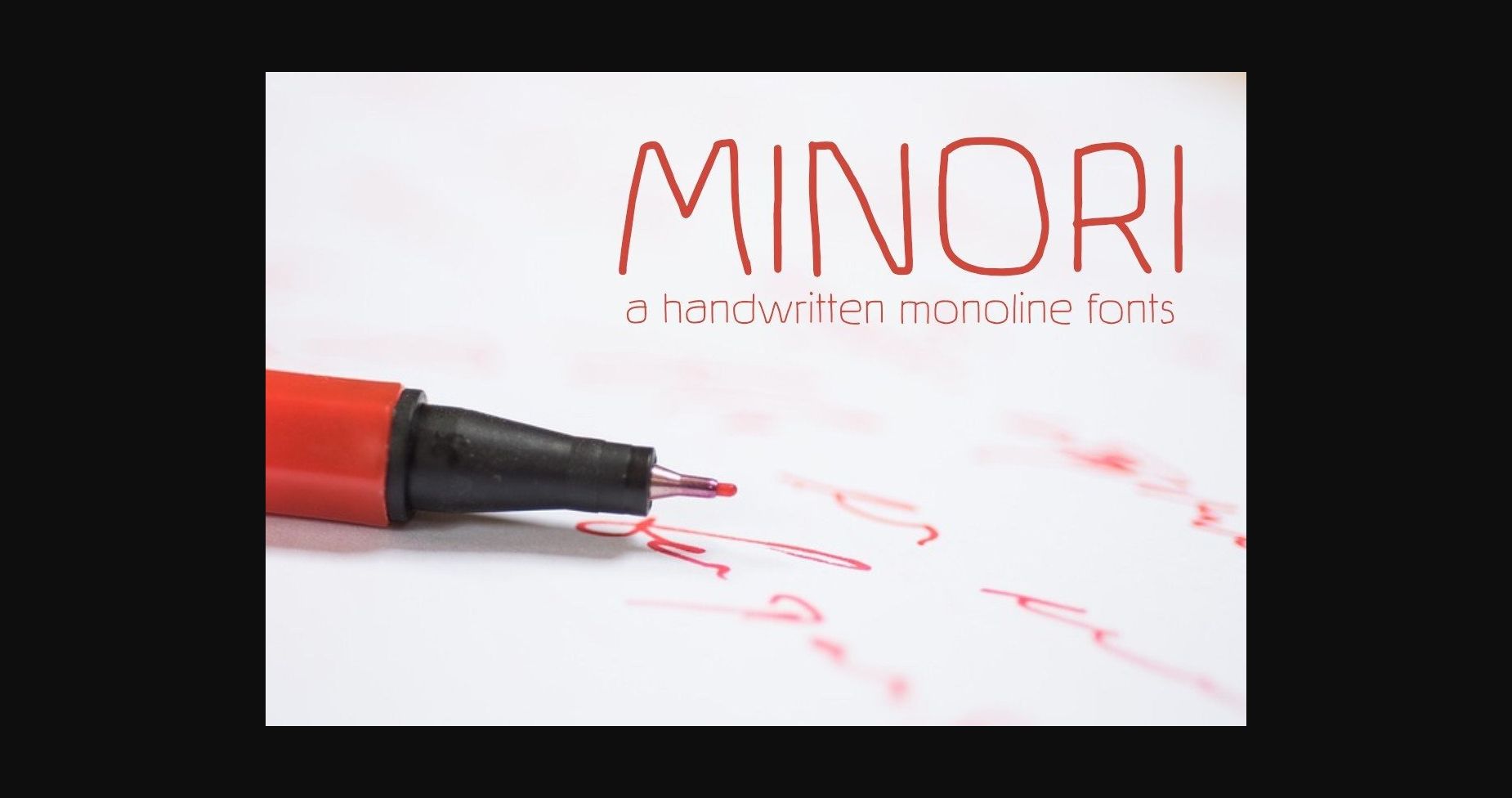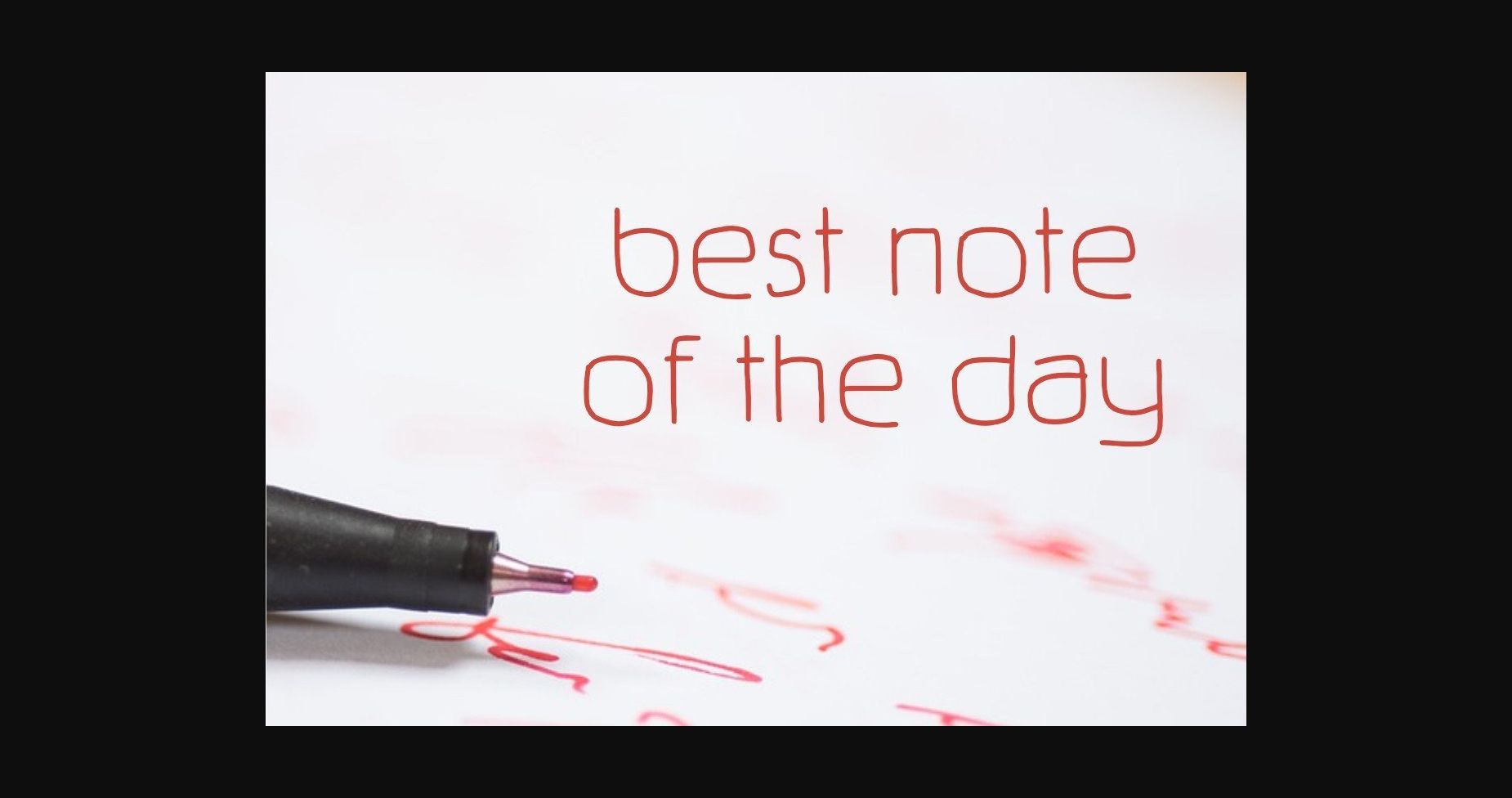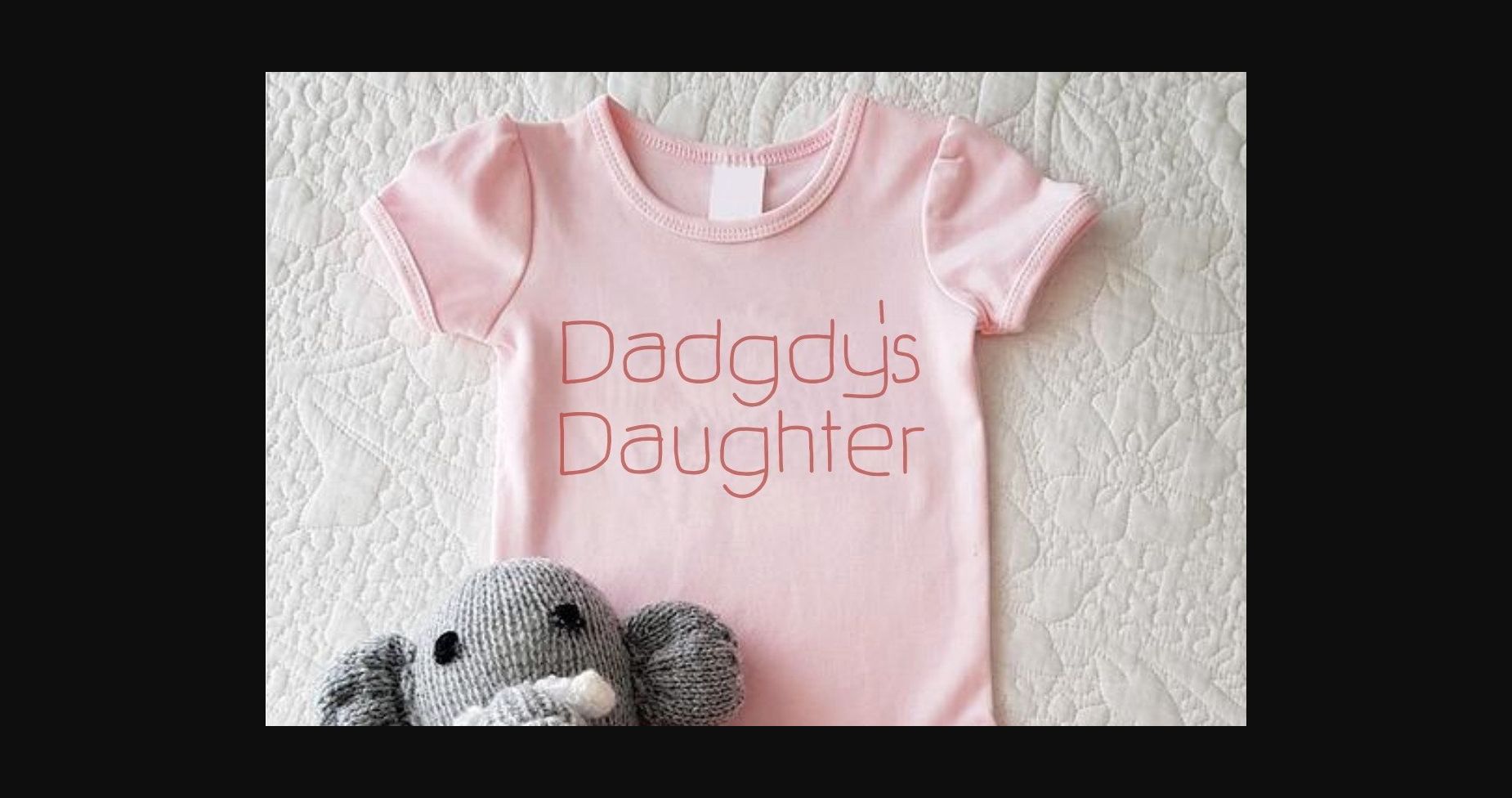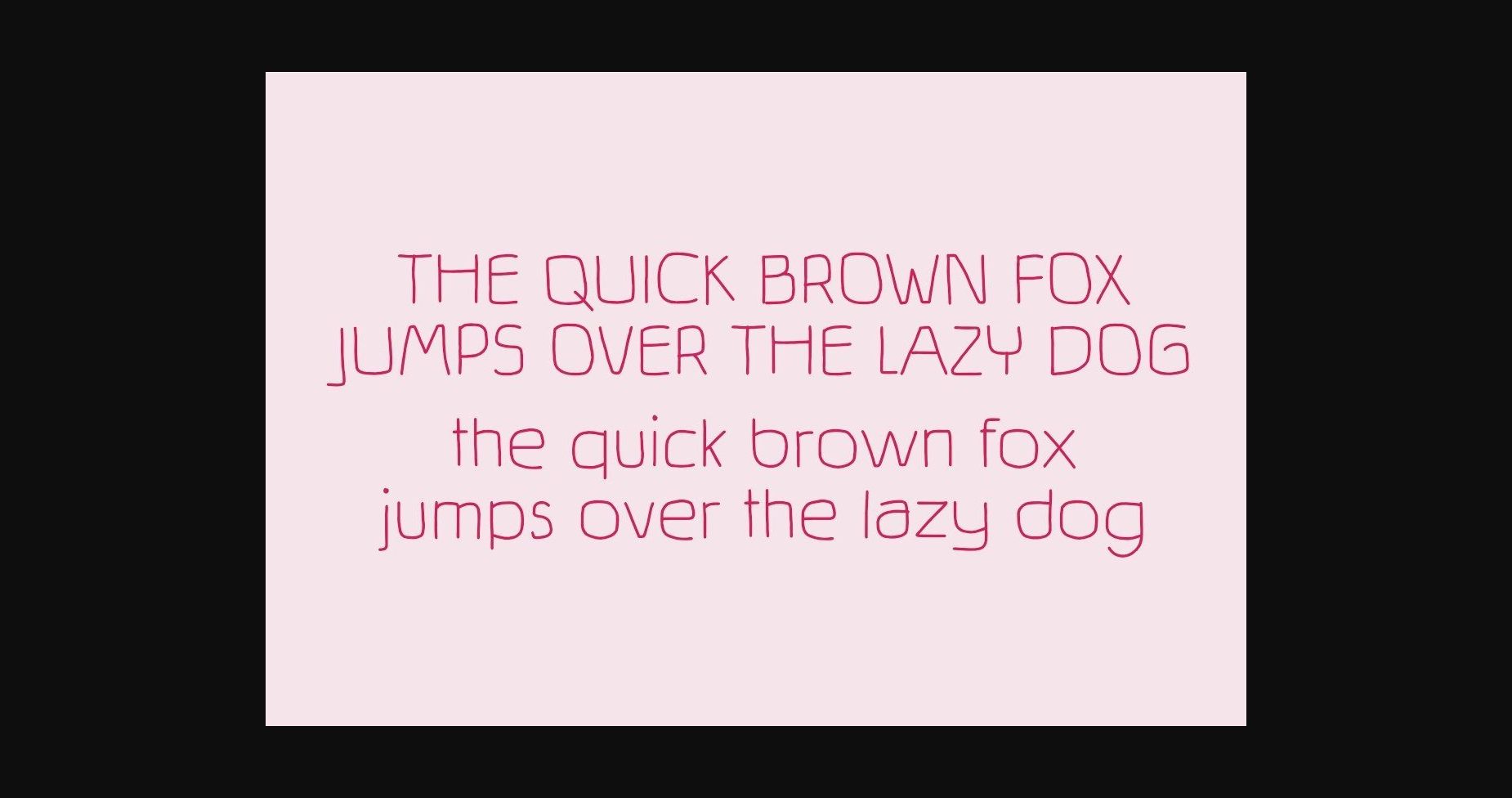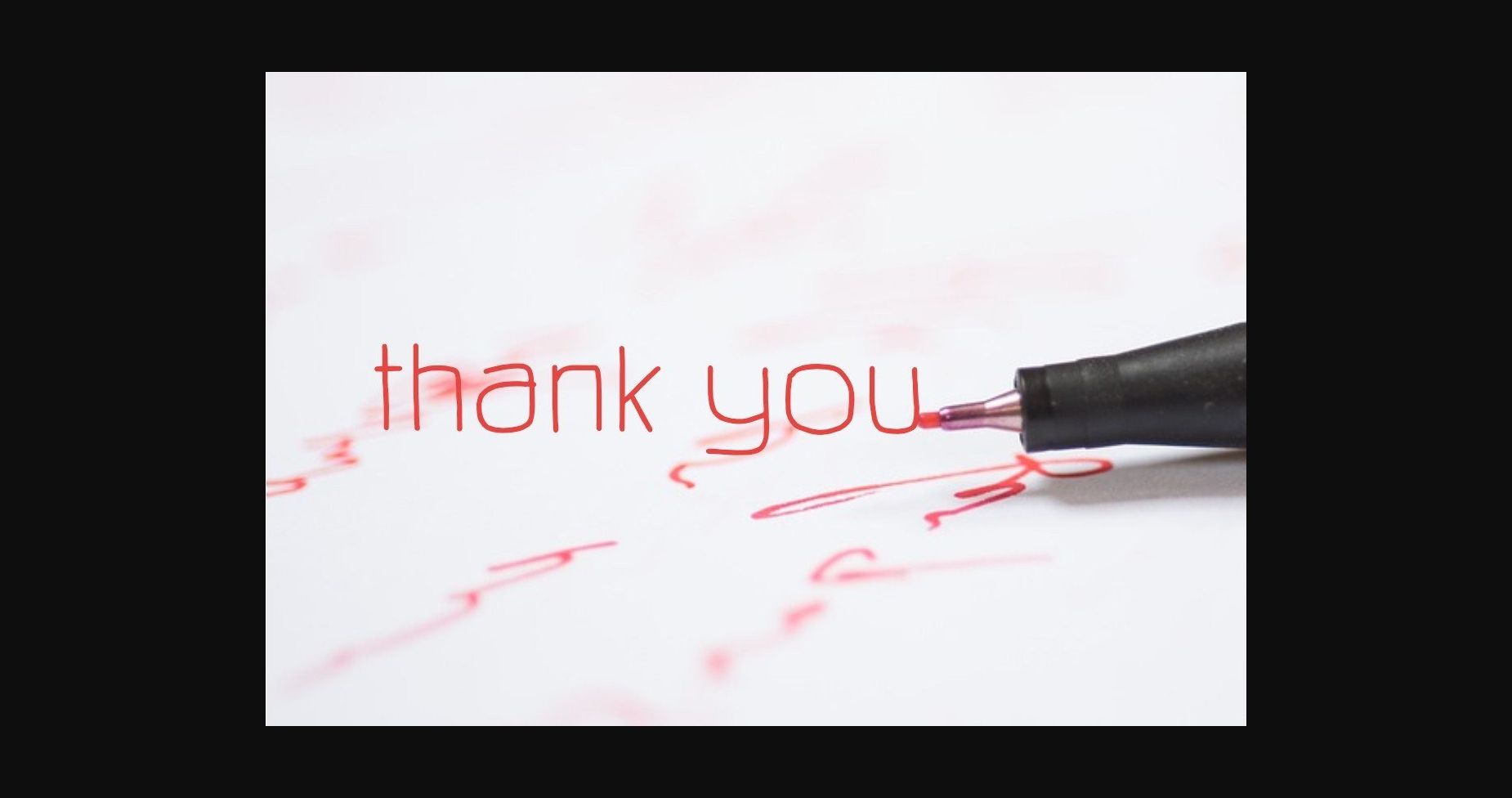
About Minori Font
Minori is a thin and modern sans serif font. The monoline characters of this clean font are suitable for various design projects – text paragraphs, websites, covers, posters, t-shirts, cards, and more.